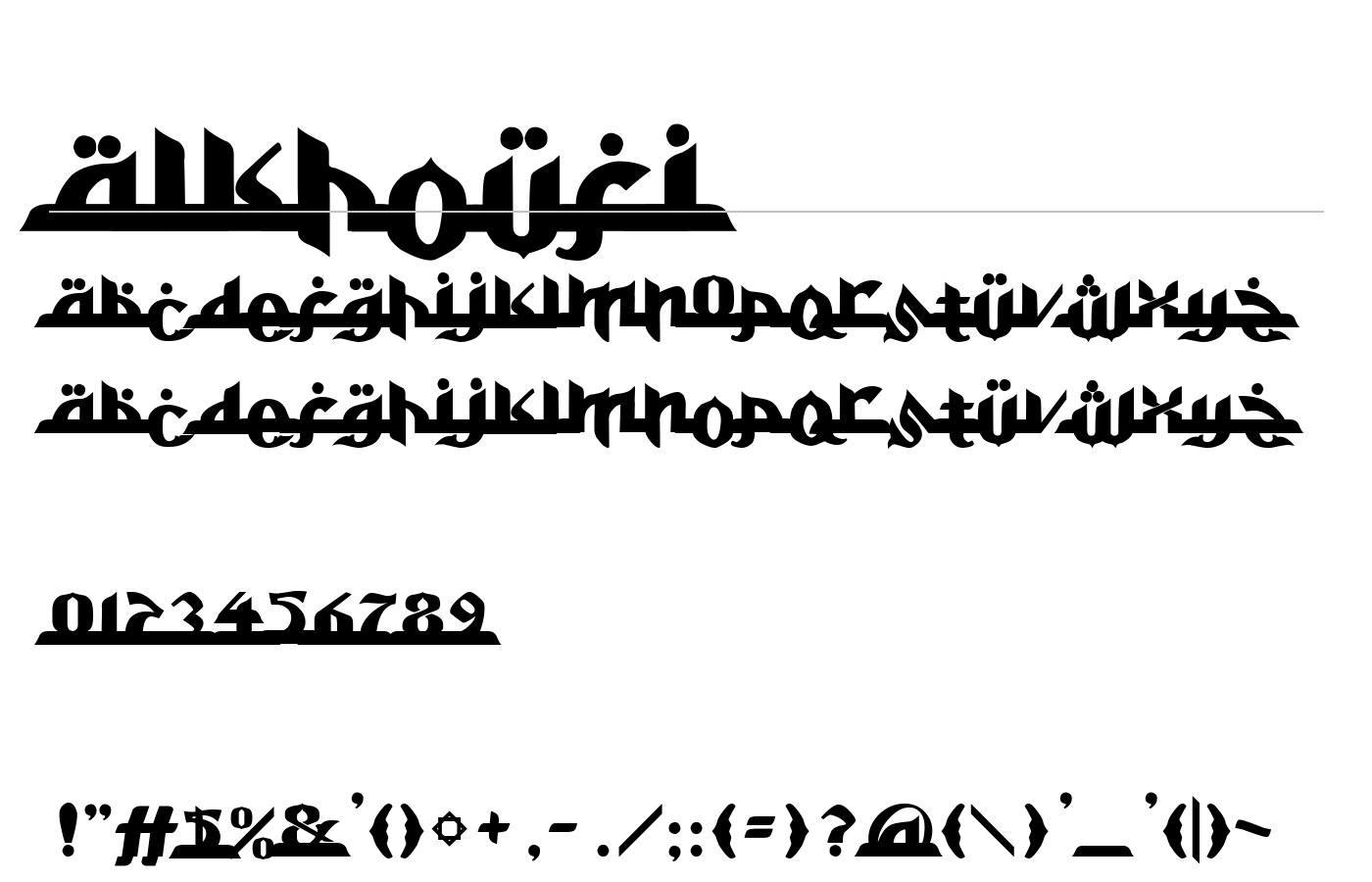
Alkhoufi Font is a bold, condensed serif typeface with a striking, modern calligraphic influence inspired by traditional Arabic calligraphy. It features high contrast between thick and thin strokes, sharp angular serifs, and unique, ornamental letterforms that give it a dramatic and artistic flair. This font works great for impactful headlines, logos, and branding where a strong, cultural identity and elegant, sophisticated style are desired.
Alkhoufi Font